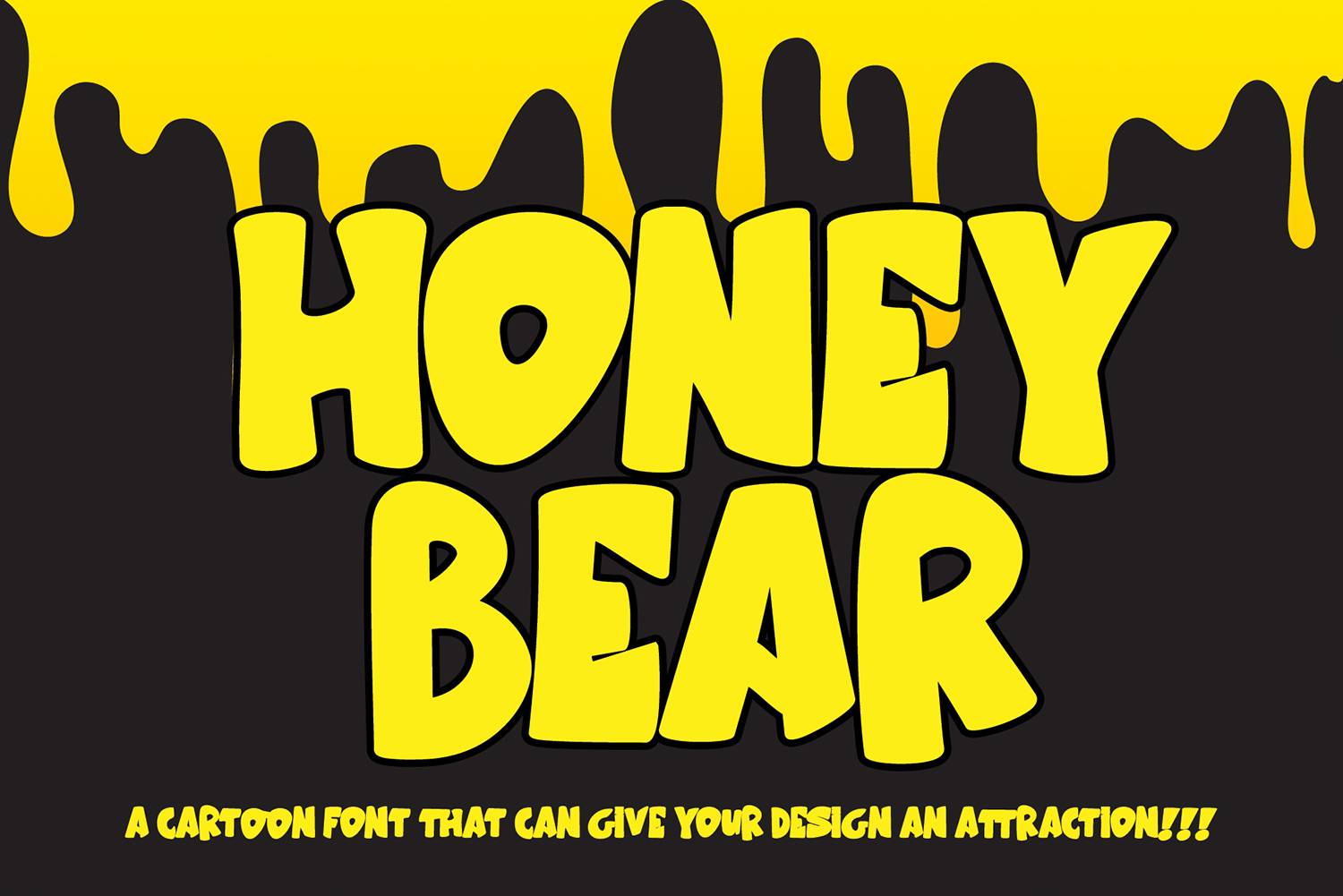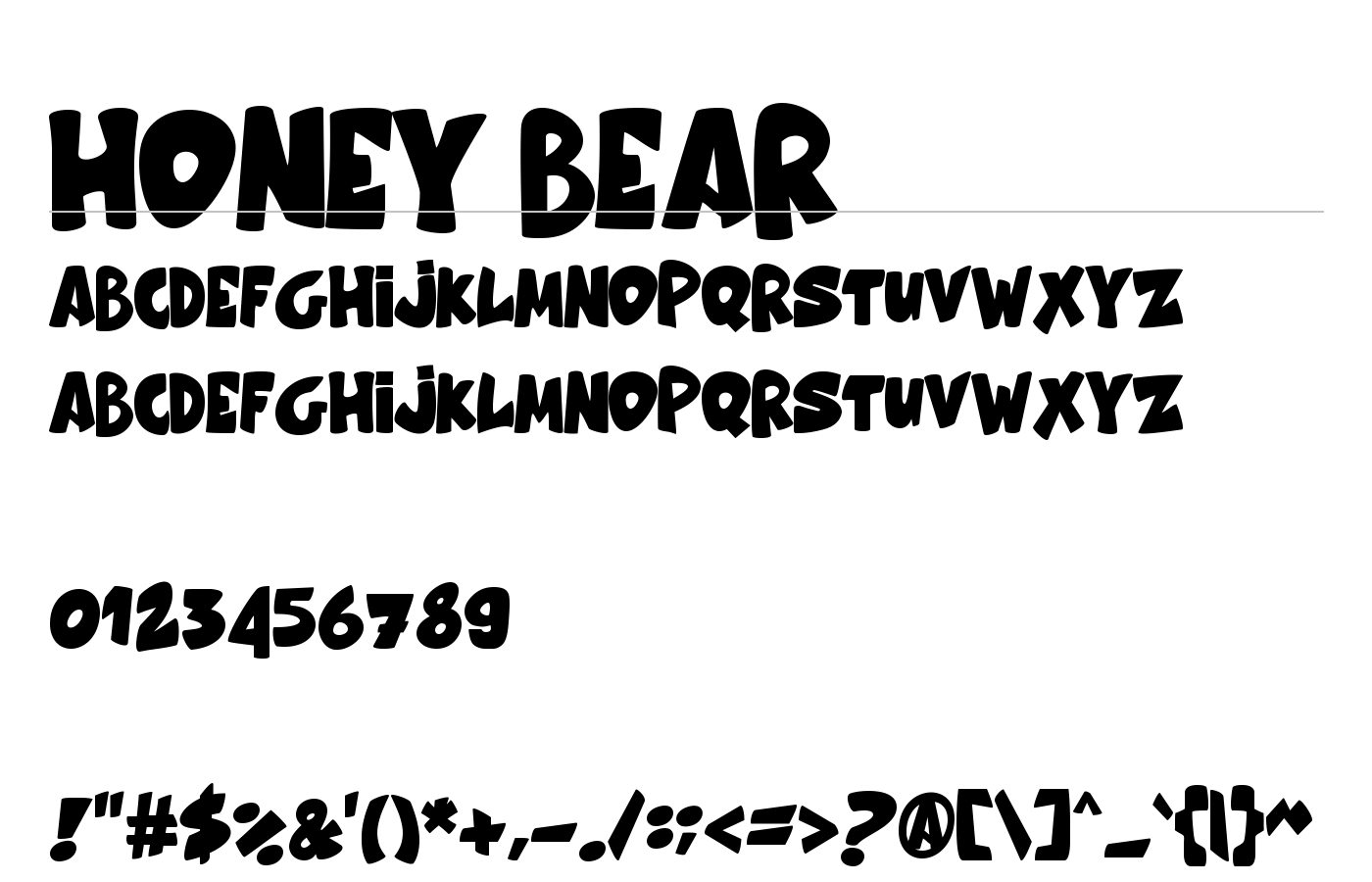
Honey Bear is a bold, playful sans serif font with a chunky, hand-drawn feel that conveys warmth and friendliness. Its rounded, irregular shapes and slightly exaggerated proportions make it perfect for fun, informal designs like children's products, casual branding, or eye-catching headlines. This font works best where a lively and approachable personality is needed to engage and delight viewers.
Honey Bear Font
About Honey Bear Font